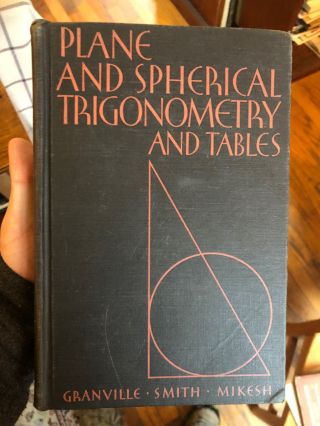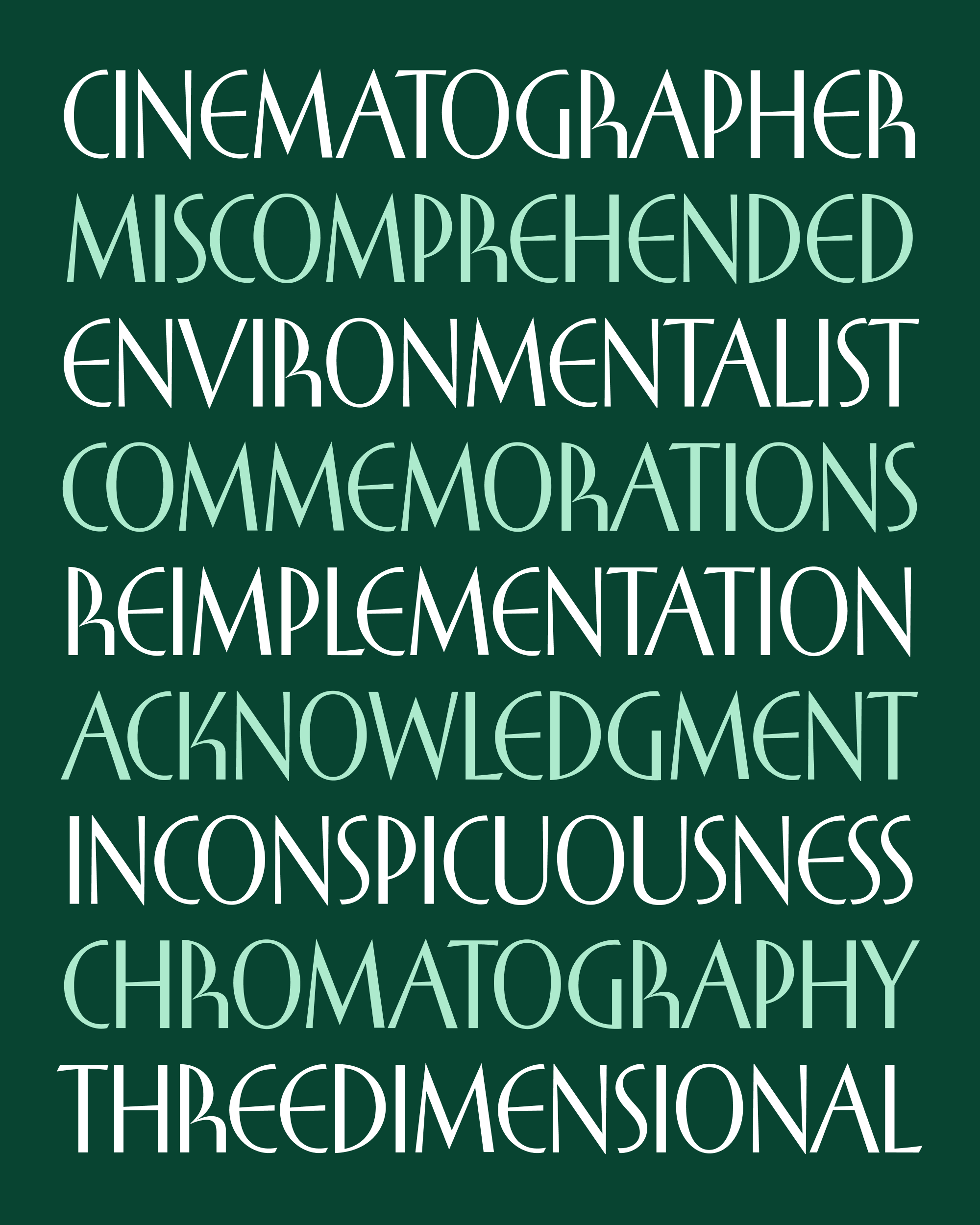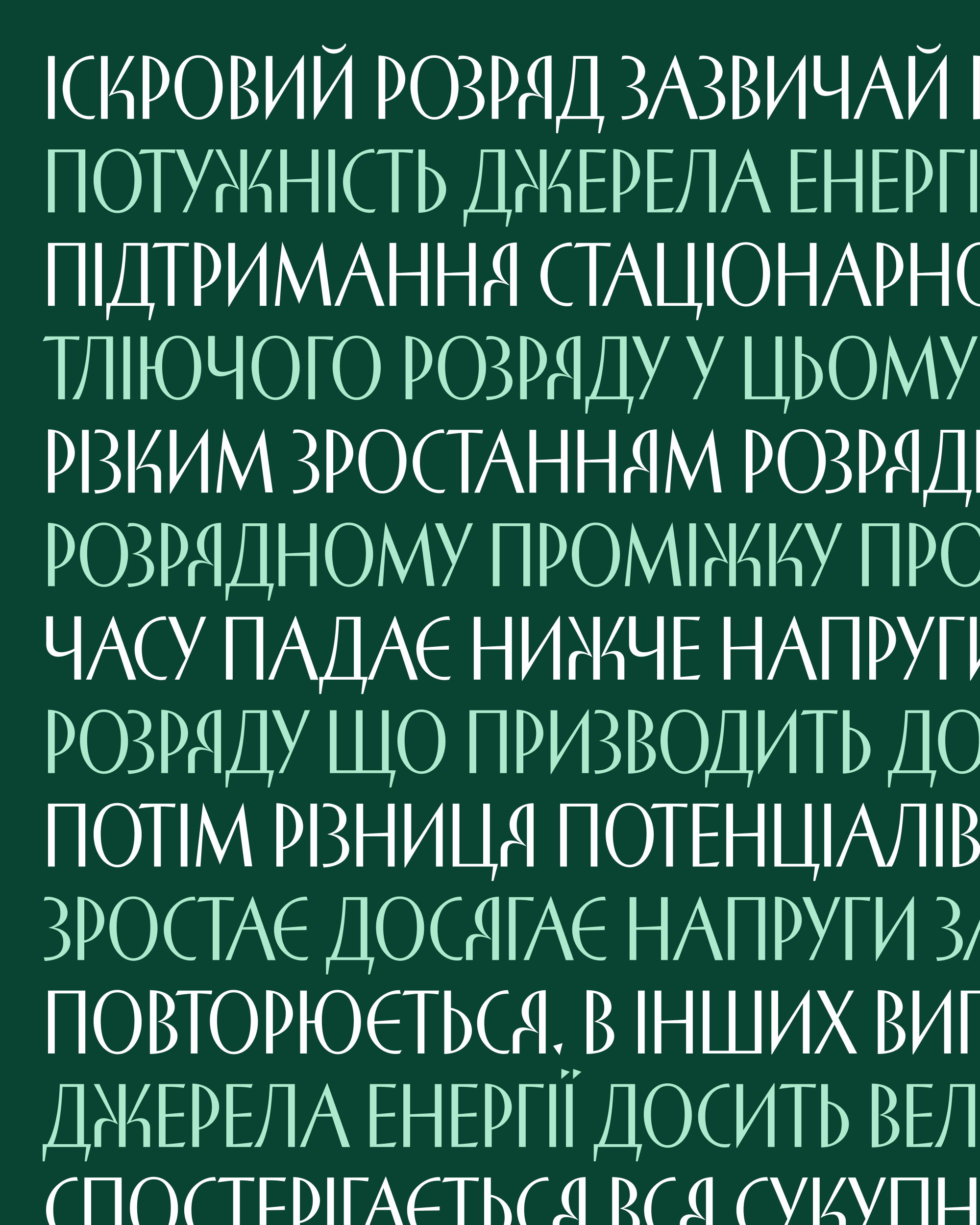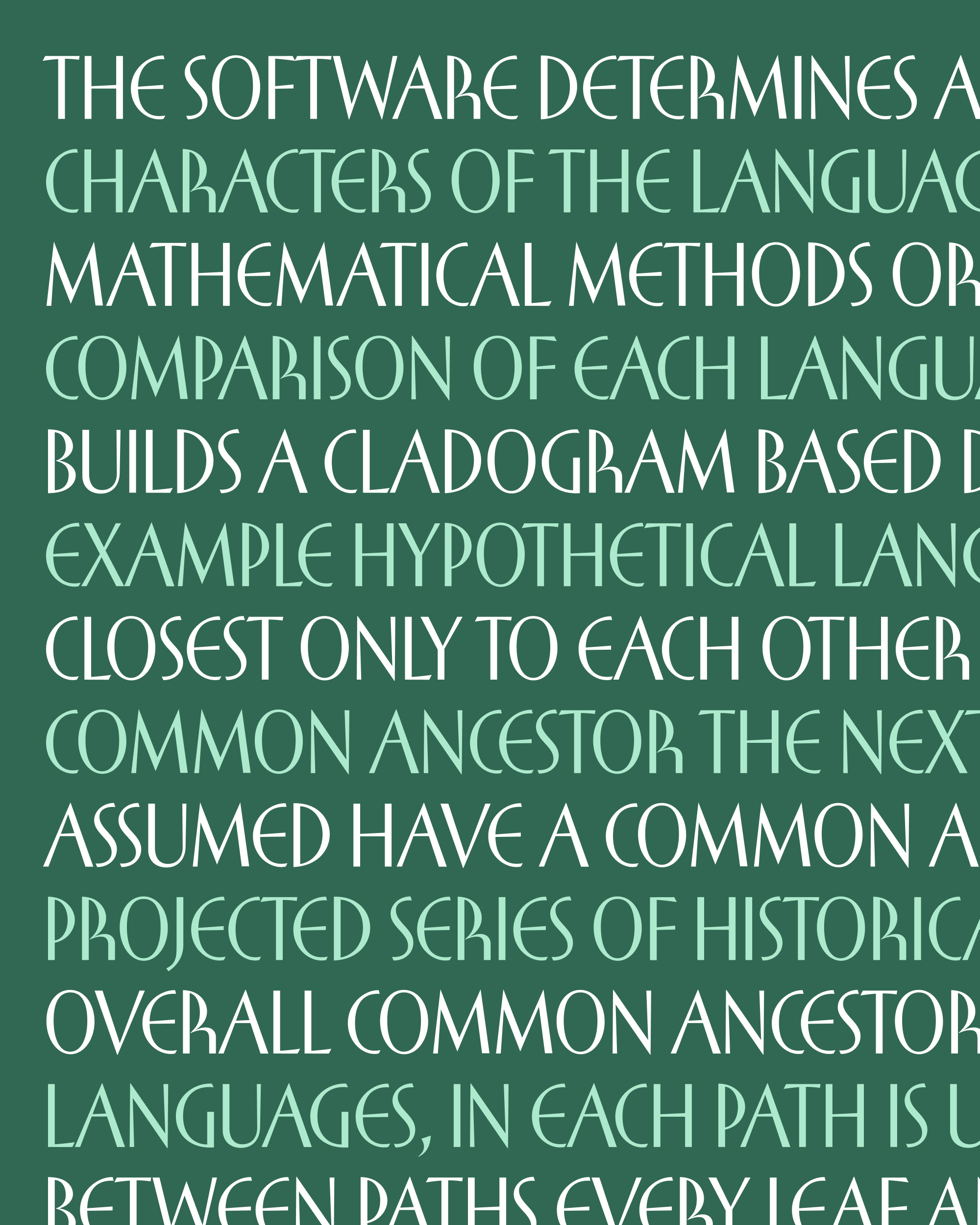
This month, I’m sending you Buckridge, a contrasted sans serif inspired by the lettering on the cover of a trigonometry textbook. I encountered this book at Nancy Dole Books & Ephemera, a lovely used bookstore in Shelburne Falls, Massachusetts—it’s actually the same shop where I encountered the boy scout manual that led me to make Merit Badge.
The book is the 1952 edition of Plane and Spherical Trigonometry published by Ginn & Co. (See also this post of Dwiggins designs from the same publisher.)
Anyway, here’s the cover:
I wasn’t able to find out anything about the book’s designer (please tell me if you know anything!), but I absolutely fell in love with this cover. The lettering on a geometry textbook could have easily gone in a more geometric direction, but instead the designer chose to introduce deco-humanistic elements. They create a compelling contrast with the illustration and add so much life to the design.
Naturally, the swooping curve of the R and the round form of the E were the first details to catch my eye. But there’s a lot of subtle forces at work here as well: the slight angle of the A in “AND”, the gentle flaring of the horizontal and diagonal strokes, and an intriguing mix of Art Deco and humanist features. Take for example how the S with diagonal stress and flared endings sits alongside a P which has none of that stuff and whose bowl is 100% vertically symmetrical. This doesn’t make any logical sense, but I can’t deny that it works!
The original designer leaned towards a more conventional K (see “MIKESH”). But in my interpretation, I thought it best to embrace my favorite elements and just run with them.
With this choice, I ran the risk of letting the R and K be a little too interesting for their own good. A typeface is always going to have more interesting letters and less interesting letters, but I try to avoid making fonts where there are a couple of letters that are SO MUCH more interesting than the rest…it’s essentially putting all of your typographical eggs into one basket. It’s great when they happen to be sprinkled evenly throughout the text, but it can be overwhelming when there are too many of them too close together. And when there are too few, it’s like eating the part of the burrito that is only rice.
After the designs of the R and K were settled, my job was to modulate the volume of the other letters so that a word without R or K doesn’t feel disappointing after a word that has them.
All of this talk about R and K got me interested in what this typeface would look like in Cyrillic, which has related letters such as Я and Ж. Buckridge’s Cyrillic uses a more conventional form of E to distinguish it from the Ukranian letter Є. I am grateful to Jovana Jocić (designer of Forma Cyrillic and Roslindale Cyrillic) for giving me incredibly helpful feedback on this design. You’ll also find the starting point for a Greek in there, but I just started that a couple days ago, and haven’t been able to solicit feedback from a native speaker quite yet.
I don’t know what else to say about this typeface except that it just makes me very happy. I wanted to work from this source material because I feel that it radiates with lightness and energy, and I hope I’ve captured that in my interpretation.